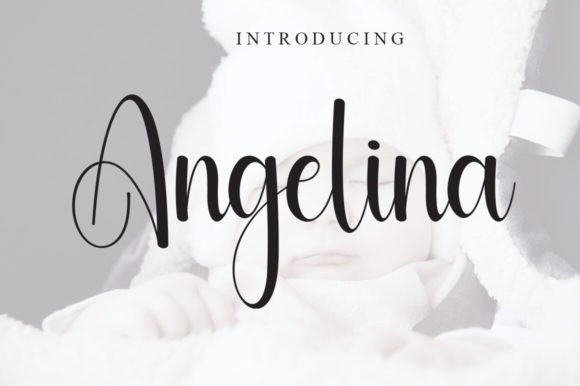
Discover the Charm of Angelina: A Captivatingly Cursive Handwritten Font
I’ll never forget the design project that led me to discover Angelina. I was working on a romantic wedding invitation suite, and my client specifically requested a font that exuded elegance, joy, and a touch of whimsy. As I scoured the internet for the perfect match, I stumbled upon Angelina – a captivatingly cursive, handwritten font that instantly stole my heart. Its soft and elegant characteristics seemed tailor-made for my project, and I knew right then that I had found the one.
As I dove deeper into Angelina, I fell in love with its unique charm. Here are a few things that make this font stand out:
- ✨ Sweet and elegant vibe: Angelina’s cursive strokes and rounded edges give it a distinctly warm and inviting feel.
- ✅ Highly versatile: This font seamlessly adapts to various design concepts, from wedding stationery to branding and packaging.
- 💕 Romantic and joyful: Angelina’s enchanting charisma is guaranteed to infuse your designs with a sense of love and happiness.
Of course, no font is perfect, and Angelina has a few minor quirks:
- 🤔 Limited use in body text: While Angelina shines in headlines and titles, its cursive nature may not be the best fit for lengthy paragraphs.
- ⚠️ Occasional kerning issues: As with any font, you may need to adjust kerning in certain situations to achieve optimal results.
The Story Behind Angelina: Designer Inspiration
Angelina was crafted with love by a talented type designer who aimed to create a font that embodies the essence of romance and joy. Inspired by classic calligraphy and handwritten scripts, Angelina’s creator poured their heart into every detail, resulting in a font that is both elegant and whimsical.
| What makes Angelina unique? | Angelina’s distinctive cursive strokes, rounded edges, and elegant vibe set it apart from other handwritten fonts. |
| Does Angelina support OpenType features? | Yes, Angelina offers a range of OpenType features, including ligatures, stylistic alternates, and glyphs. |